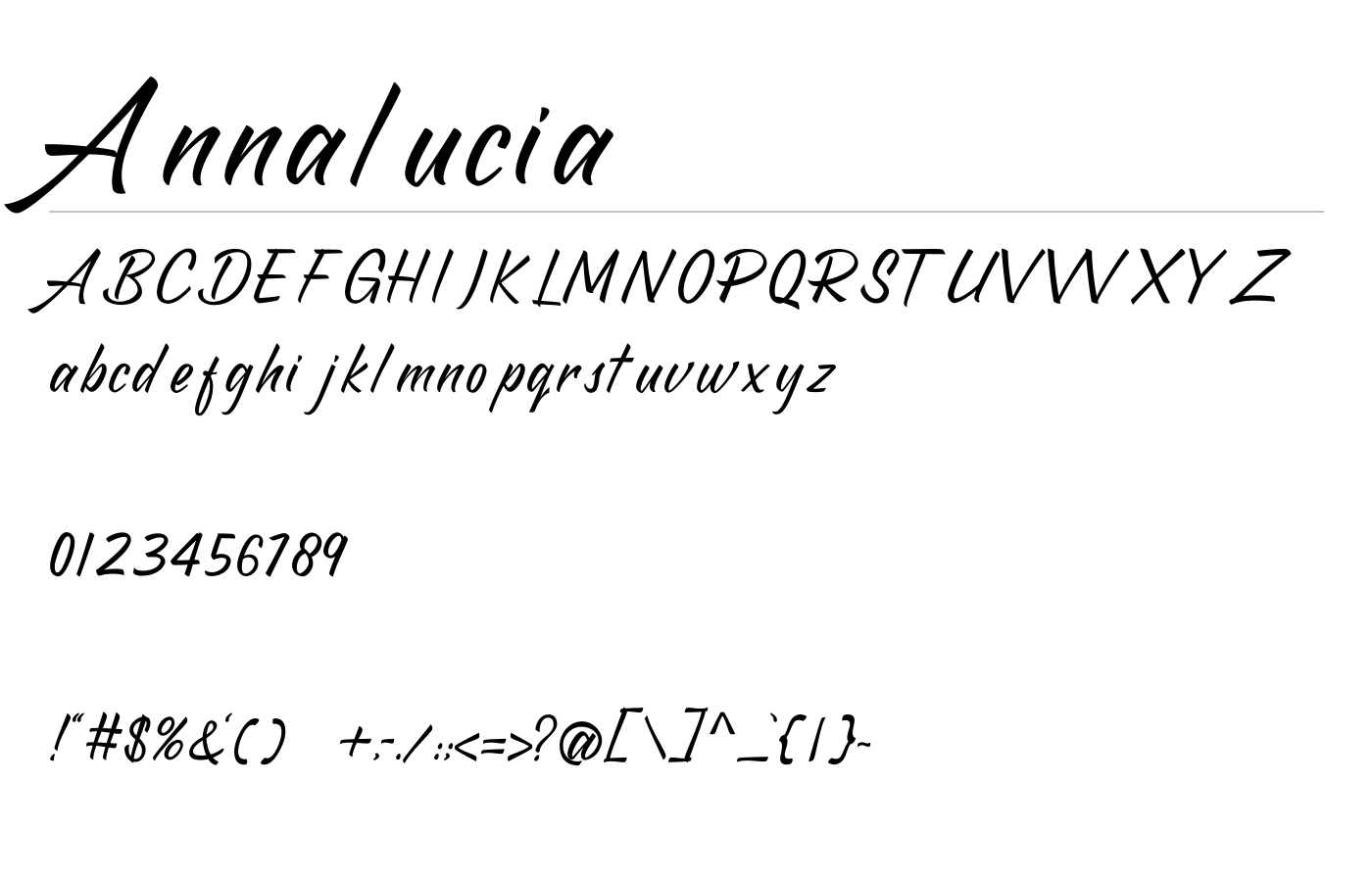
Annalucia is an elegant, handwritten script font with a slender, flowing style that conveys a personal and artistic touch. Its slightly slanted, thin strokes and delicate curves make it ideal for creative branding, invitations, and feminine designs where a refined yet approachable feel is desired. This font works well in contexts that benefit from a graceful, handcrafted look while maintaining good readability.
Annalucia Font
About Annalucia Font